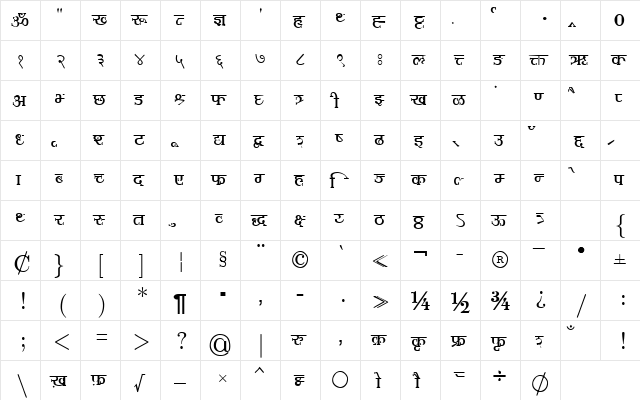
Shivaji02 Normal
Design Context for Shivaji02 Typeface
Shivaji02 takes a measured approach to typography — its balanced proportions and neutral character make it a reliable workhorse for both digital and print work.